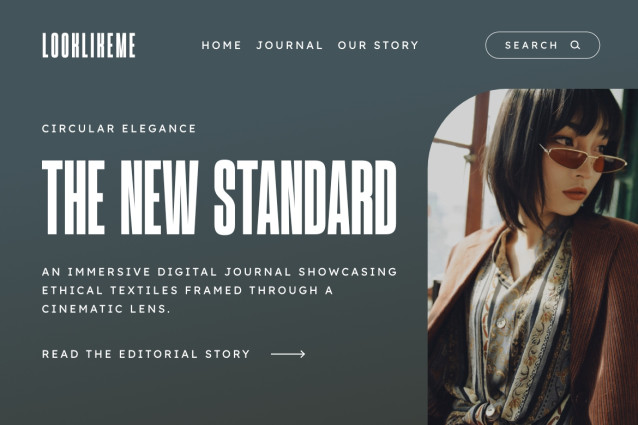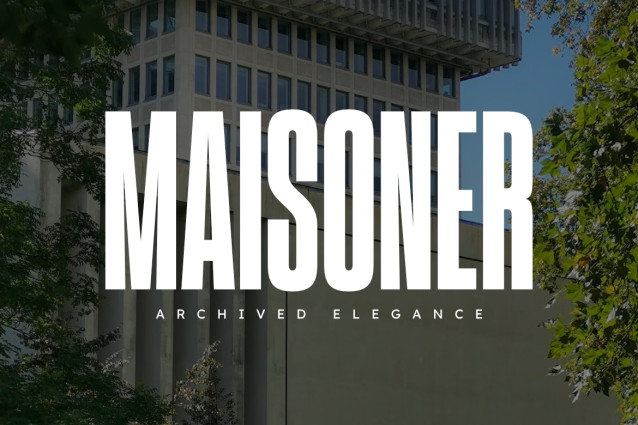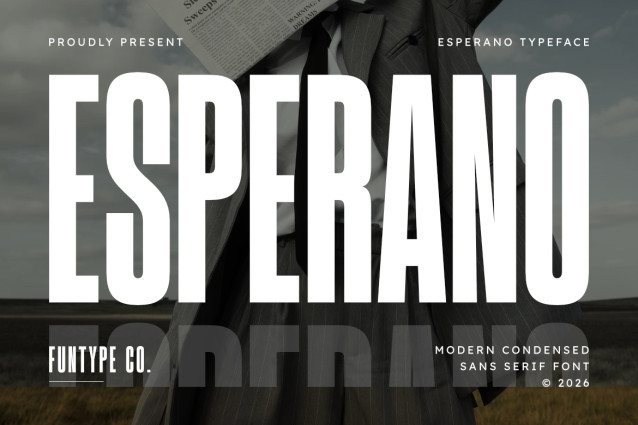
Esperano is a sophisticated, bold, and modern condensed sans serif font, engineered to bring an authoritative editorial presence, ultra-tall space-saving geometry, and a high-impact display aesthetic to contemporary graphic layouts. Featuring an elongated vertical profile, heavy block proportions, and sharp angular notch cutouts, Esperano introduces a commanding newspaper headline identity, high-concept business editorial layout, corporate enterprise showcase, and prominent digital media presentation designed to claim absolute visual focus.
This font family is the ultimate choice for creative directors, publication designers, and brand managers looking to implement a robust typography identity for major text hierarchies. Whether you are developing bold corporate enterprise logotypes, high-fashion magazine covers, financial report publications, cinematic movie title sequences, architectural portfolio headers, or prominent digital web banners, Esperano stands out with supreme legibility and commanding structural confidence.
- Modern Condensed Display Structure: Optimized with an ultra-narrow horizontal footprint and tall vertical proportions for heavy, high-impact title compositions.
- Dynamic Sharp Notch Geometry: Elongated block lines accented with distinctive angular notch cutouts crafted to secure instant audience attention.
- Multilingual Support: Fully loaded and prepared for cross-platform international marketing campaigns.
- Corporate & Editorial Aesthetic: Solid vertical strokes balanced with clean, sharp proportions, perfect for cutting-edge publications, business news media, and digital branding.